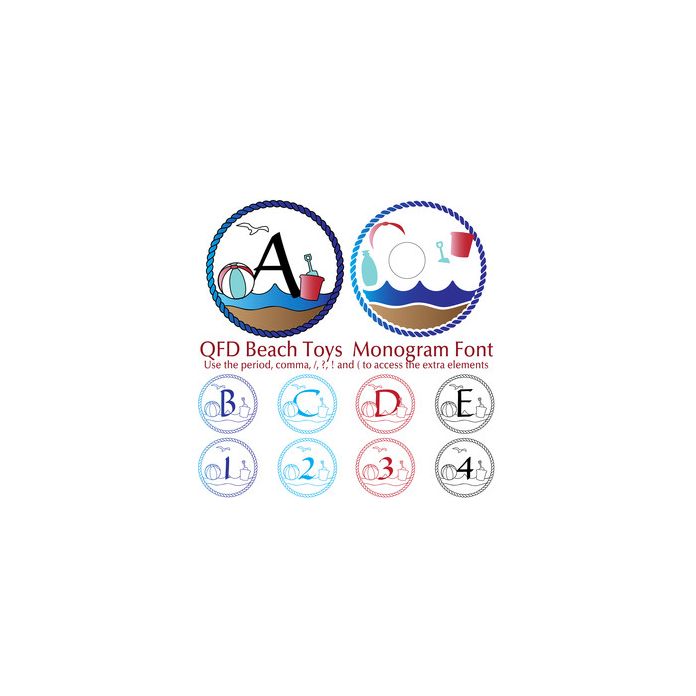
qfd beach toys monogram summer beach font
It’s beach time! This font paints a whole adventure scene. Combine this fun font with the other QFD Summer Beach Monogram fonts! See our detailed monograms tutorial by clicking the Instructions button. Use the period, comma, /, ? and ( to access the extra elements. If you have any questions, please feel free to contact me!